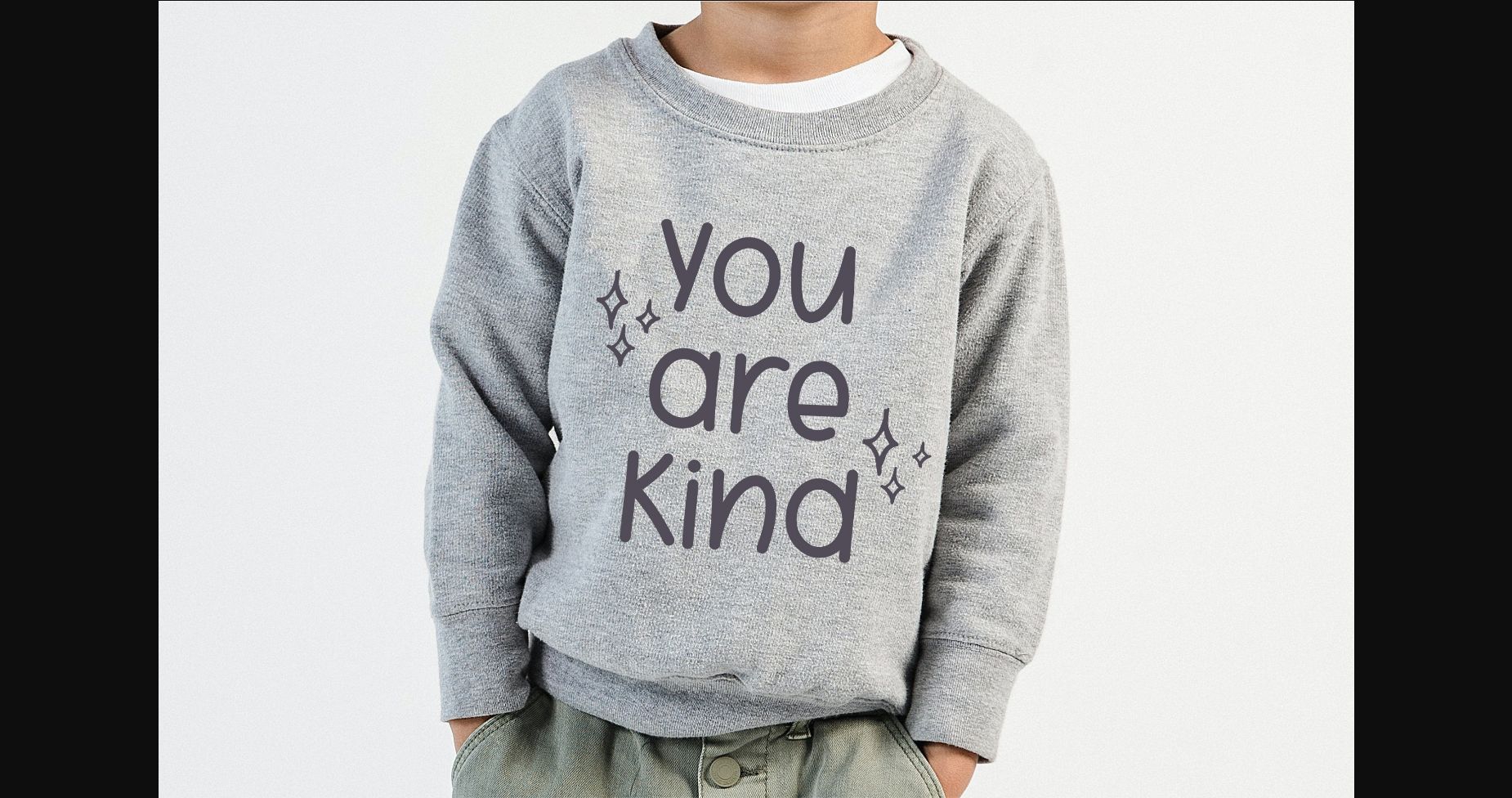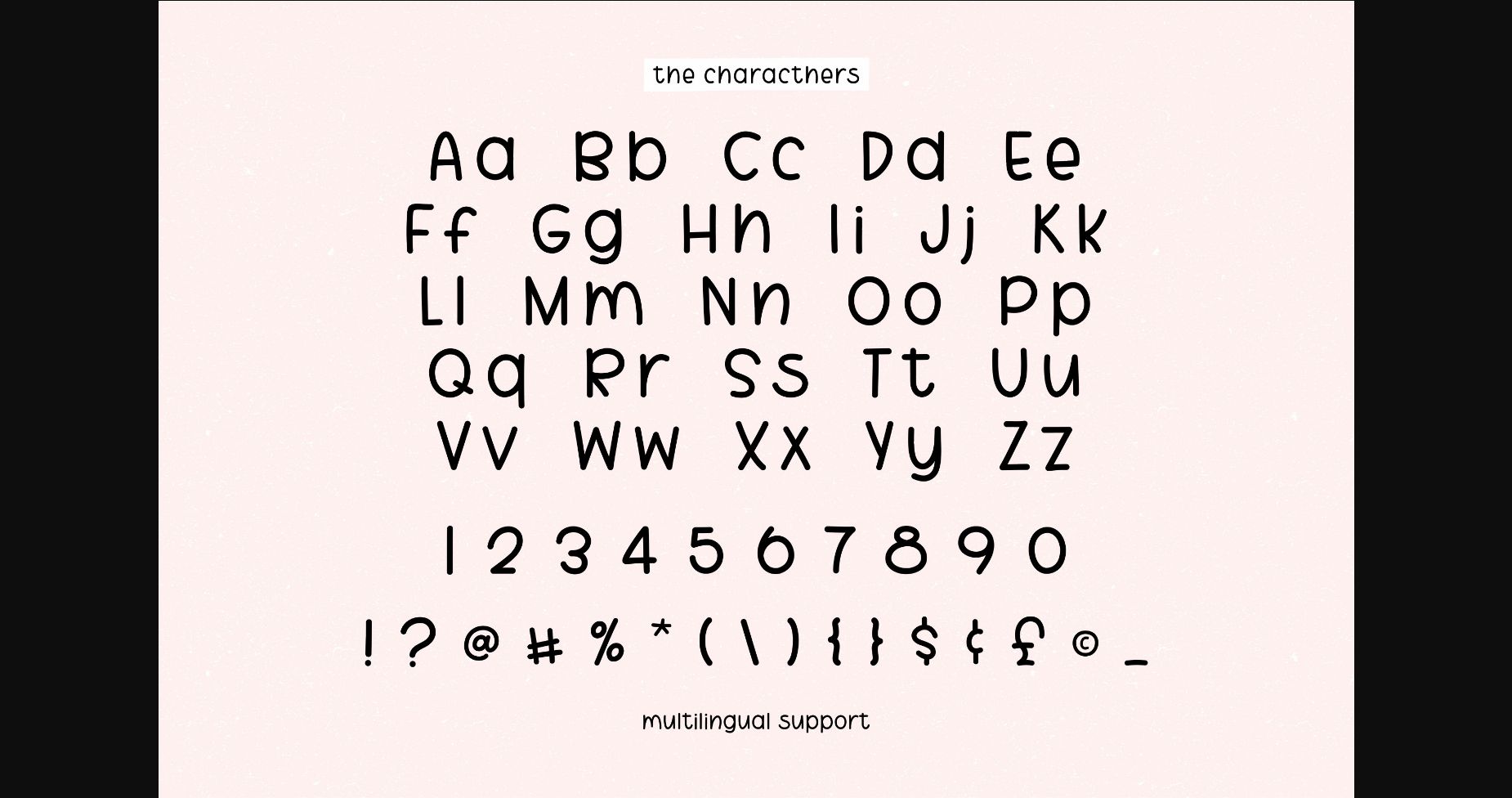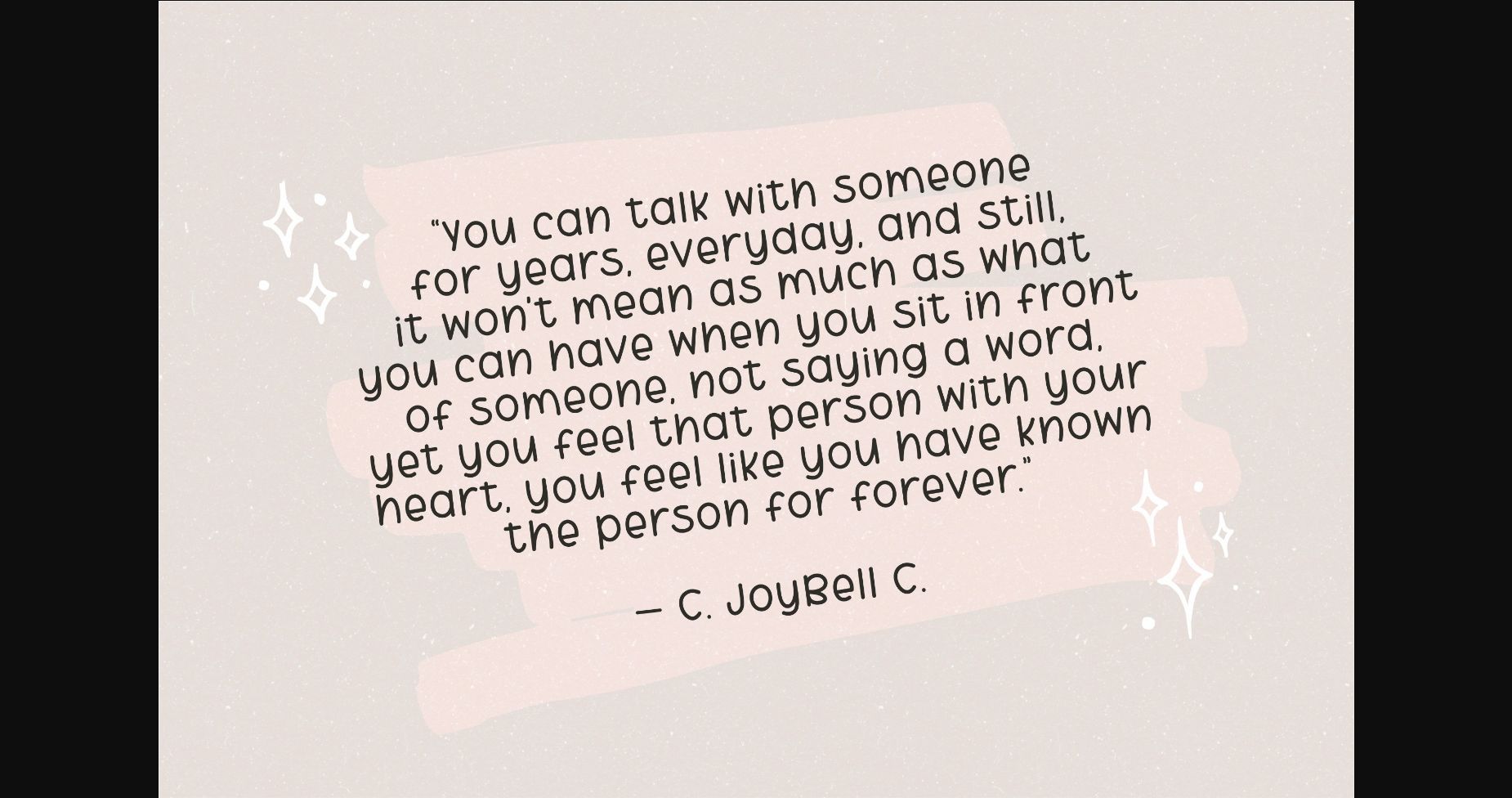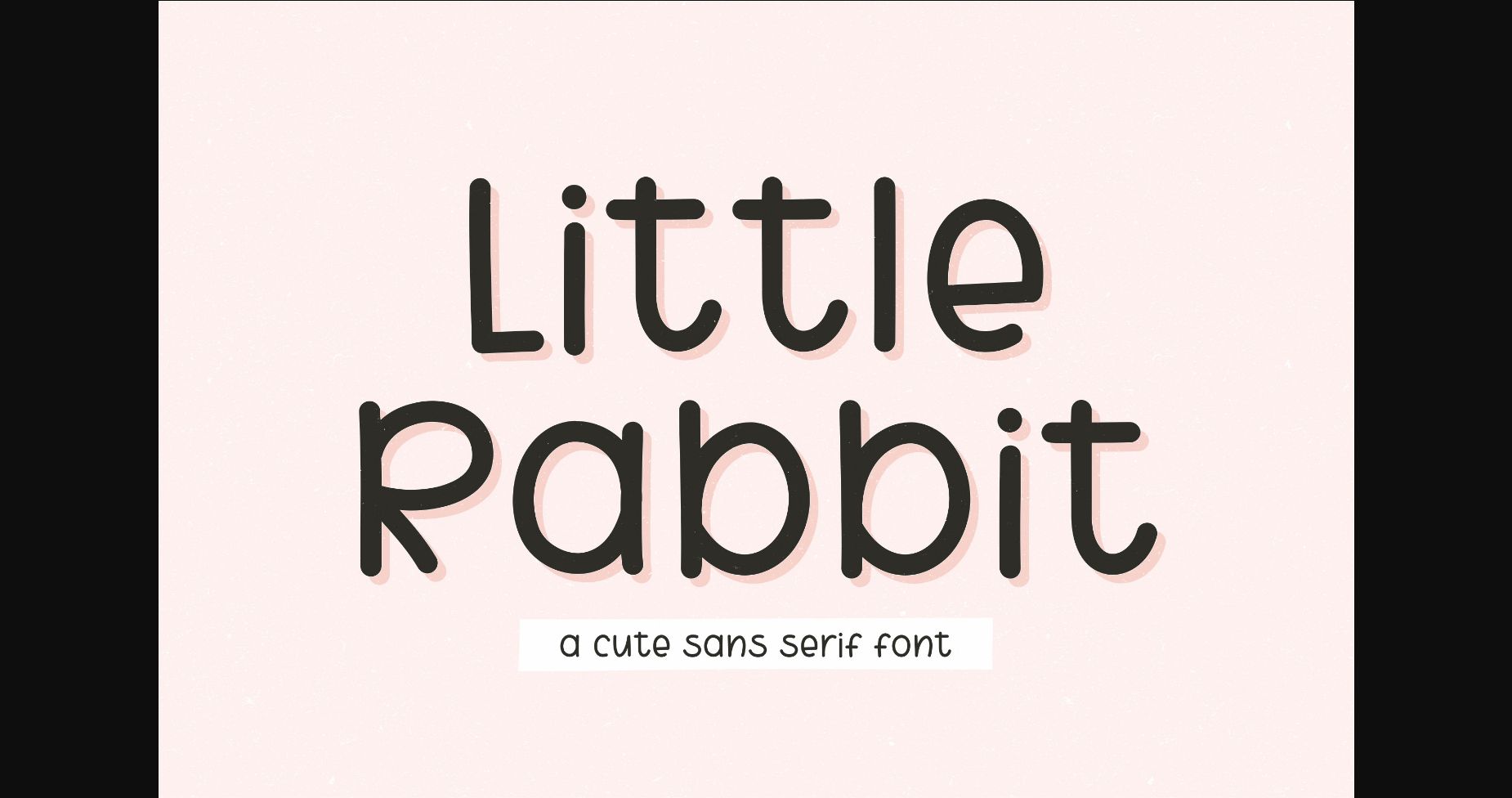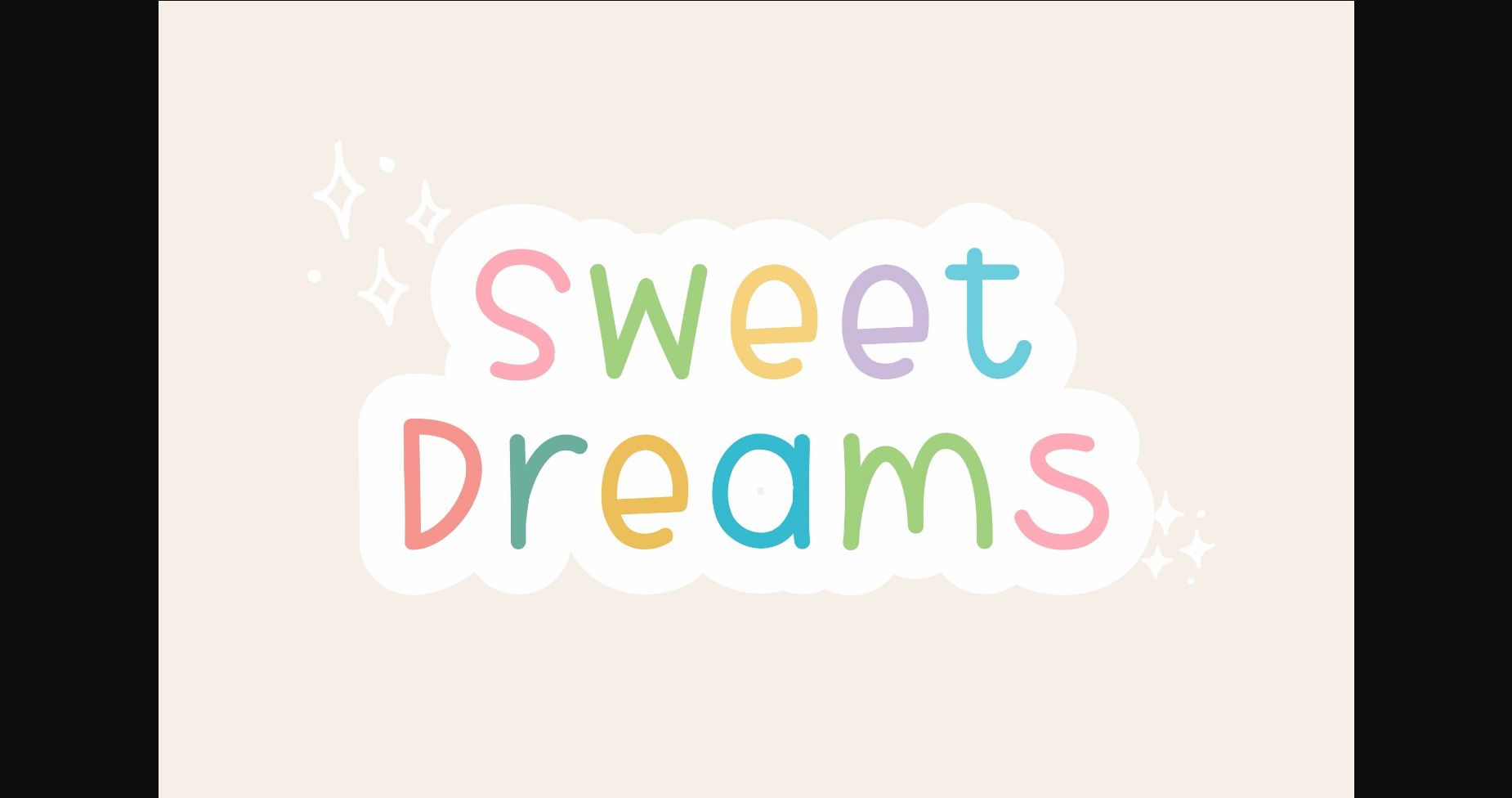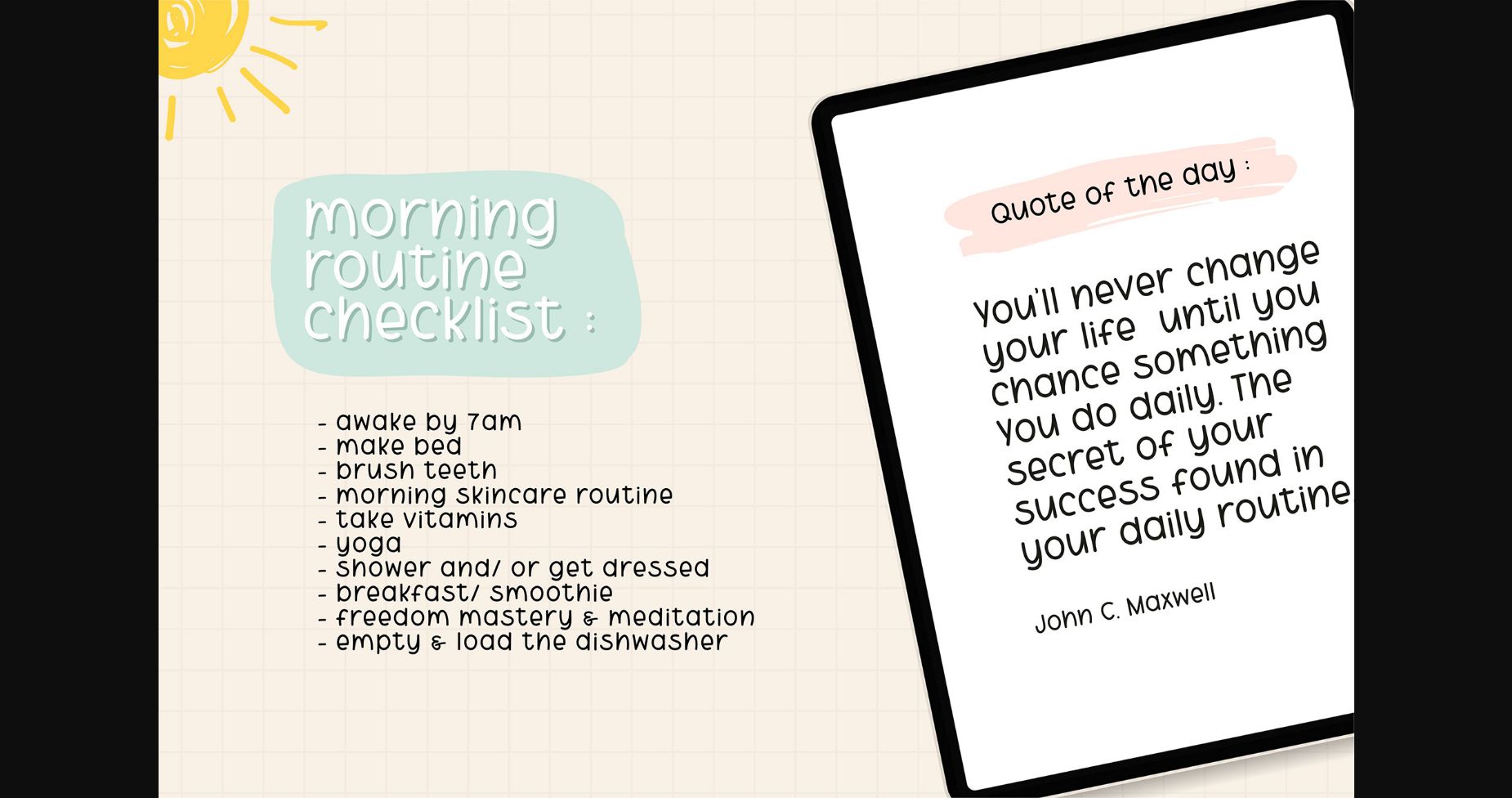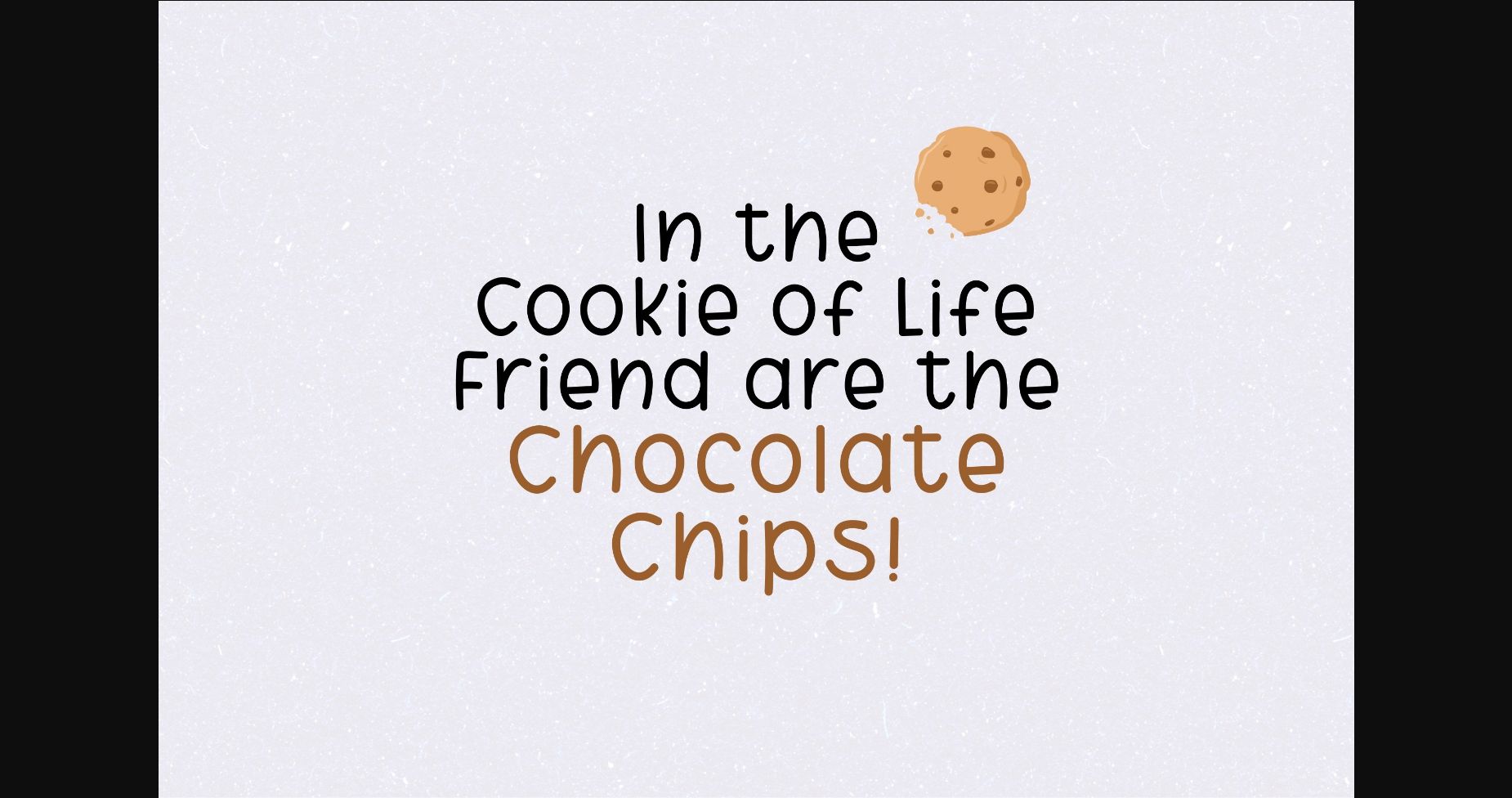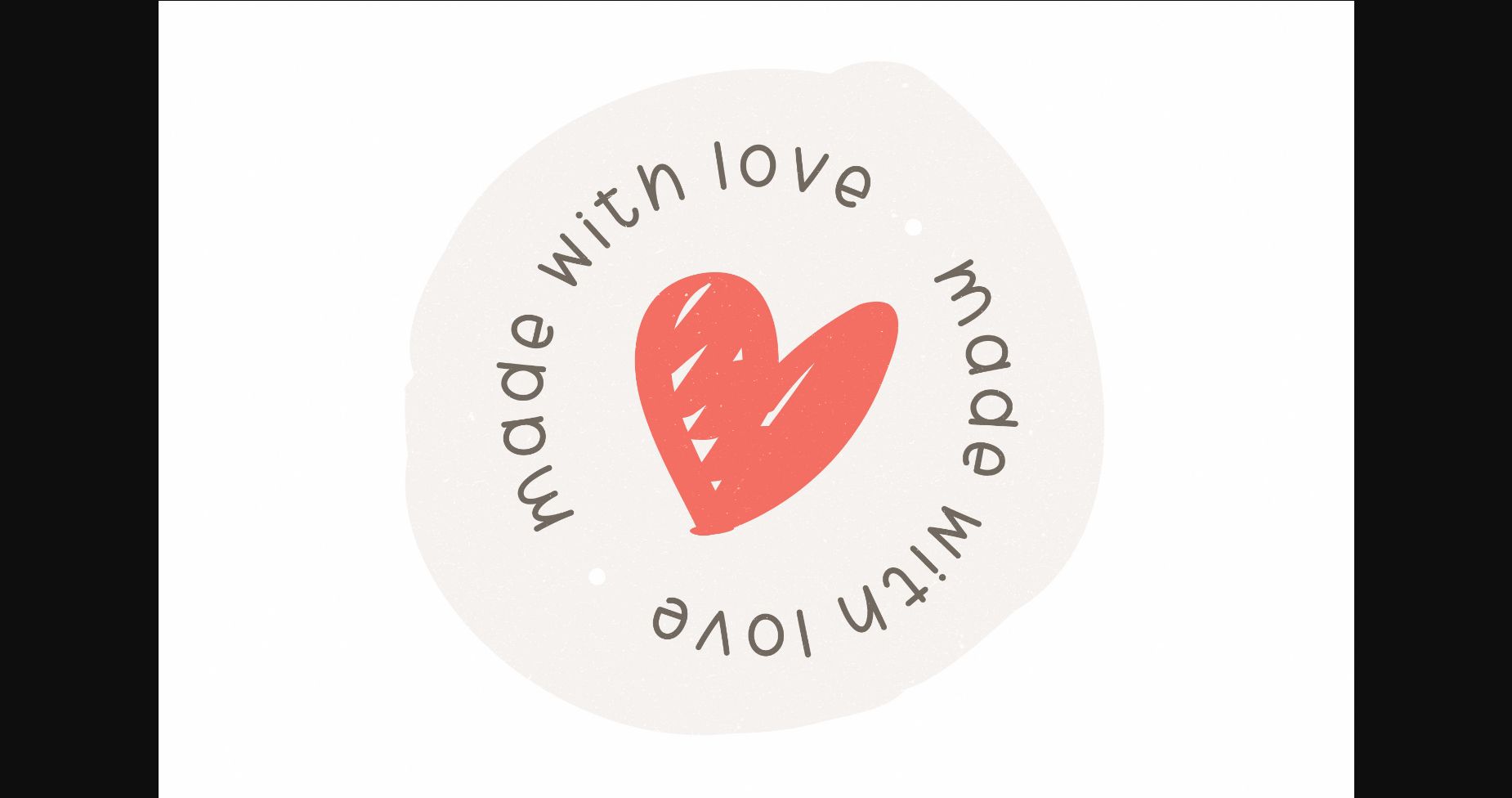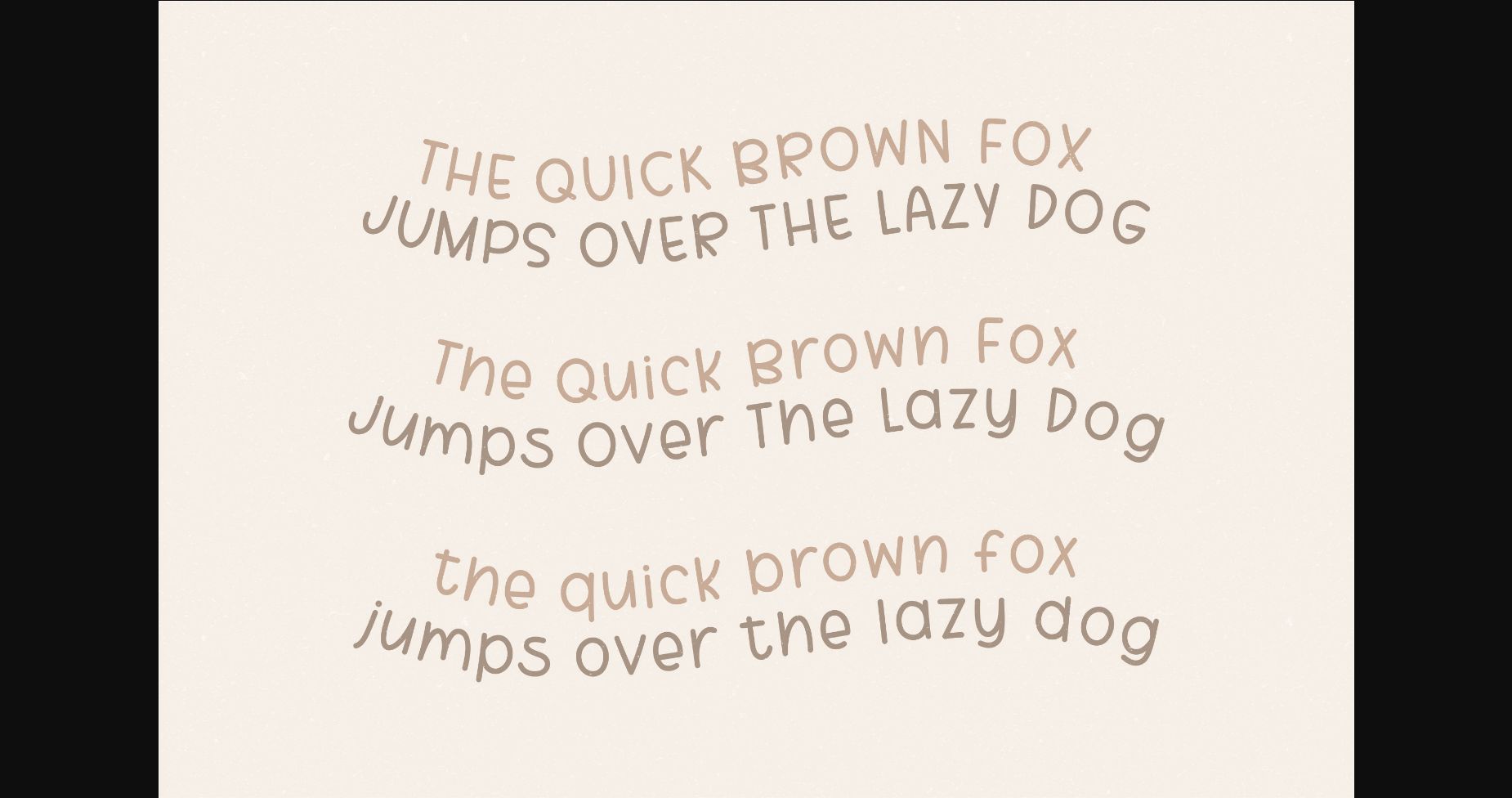
Little Rabbit is a cute and neat sans serif font. Perfect for card designs, crafts, digital designs, presentations, social media designs, digital planners and many more.